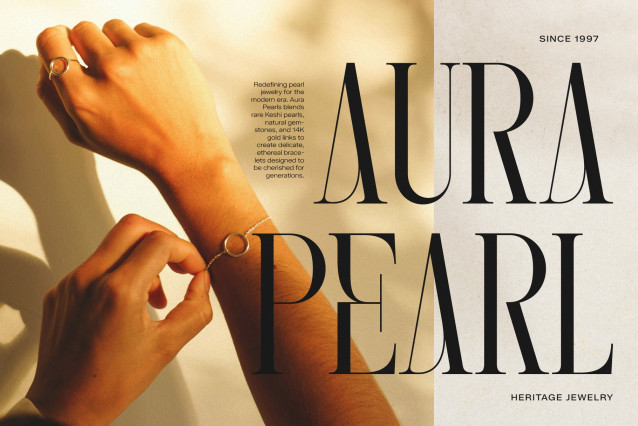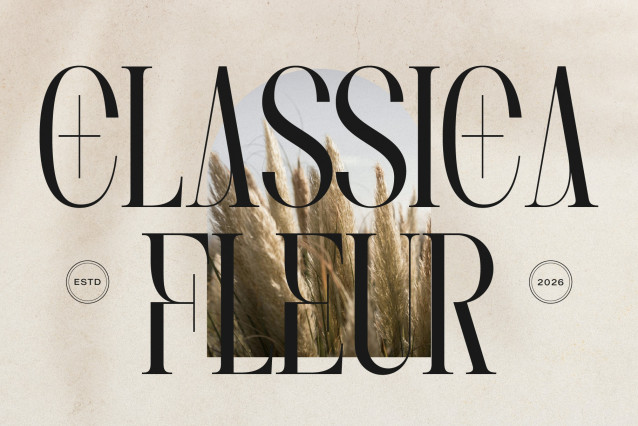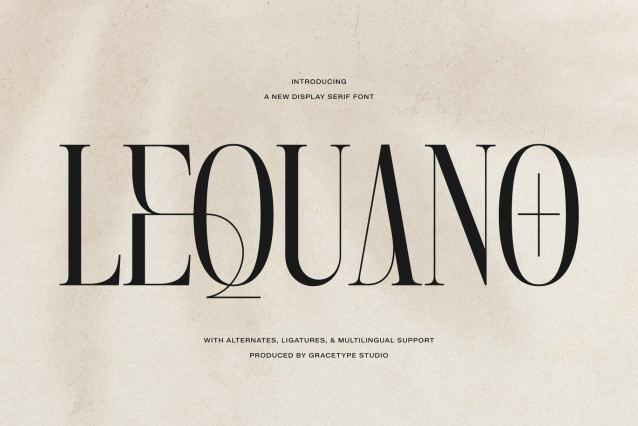
Lequano New Display Serif Font
Lequano | New Display Serif, from Gracetypestudio, suitable for any projects such as: logos, branding projects, homeware designs, product packaging, mugs, quotes, posters, shopping bags, t-shirts, book covers, name card, invitation cards, greeting cards, label, photography, watermark, special events, and all your other lovely projects that need a Serif taste.